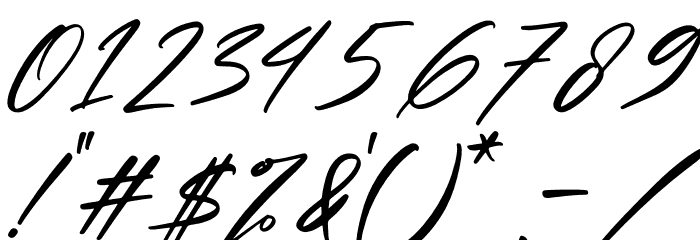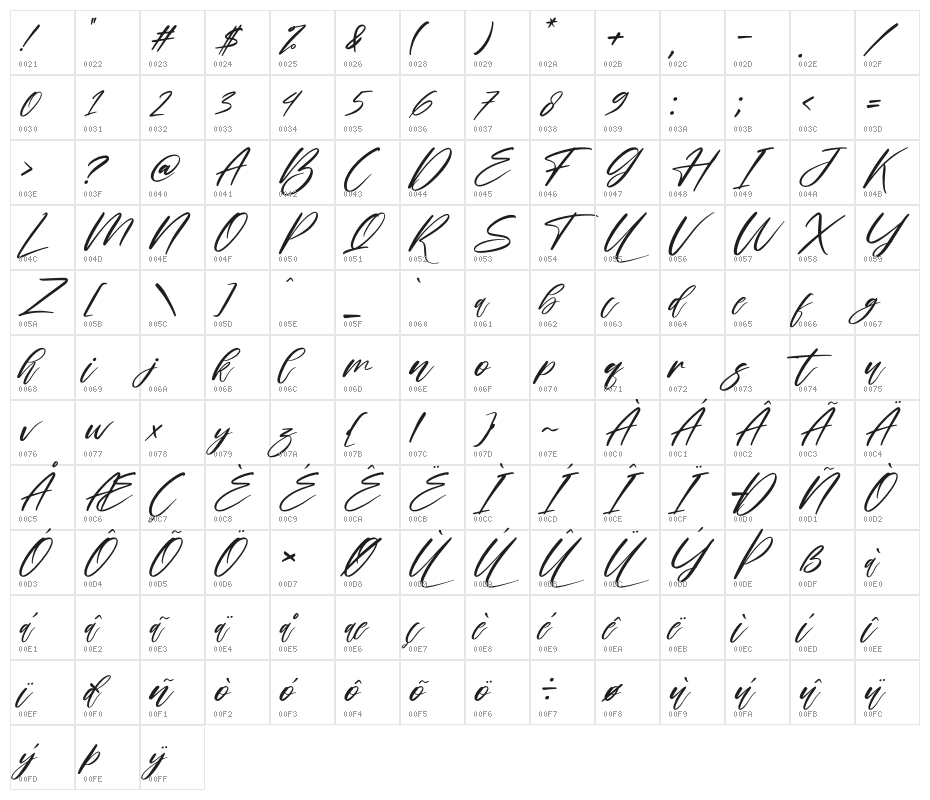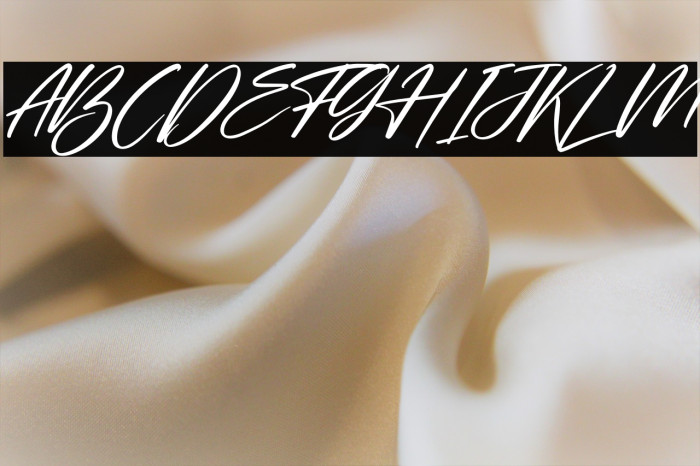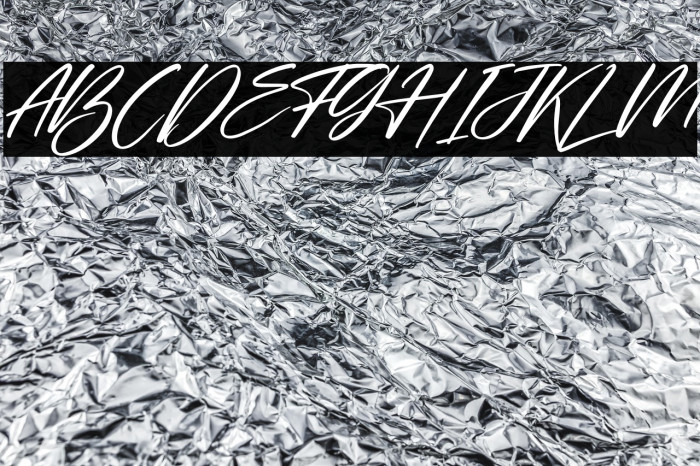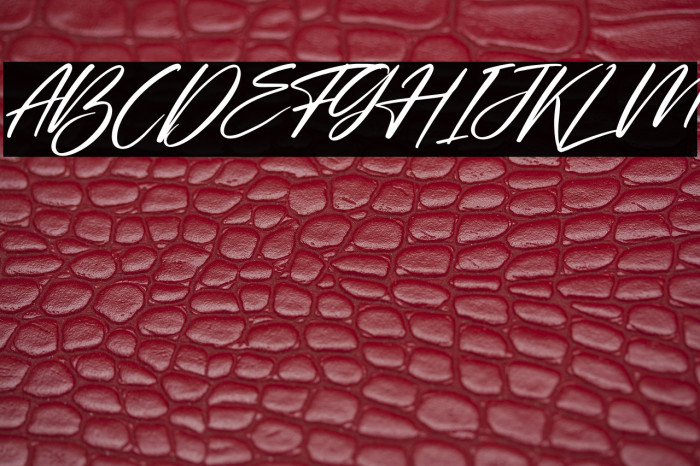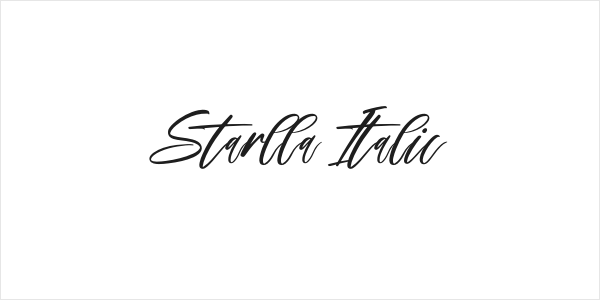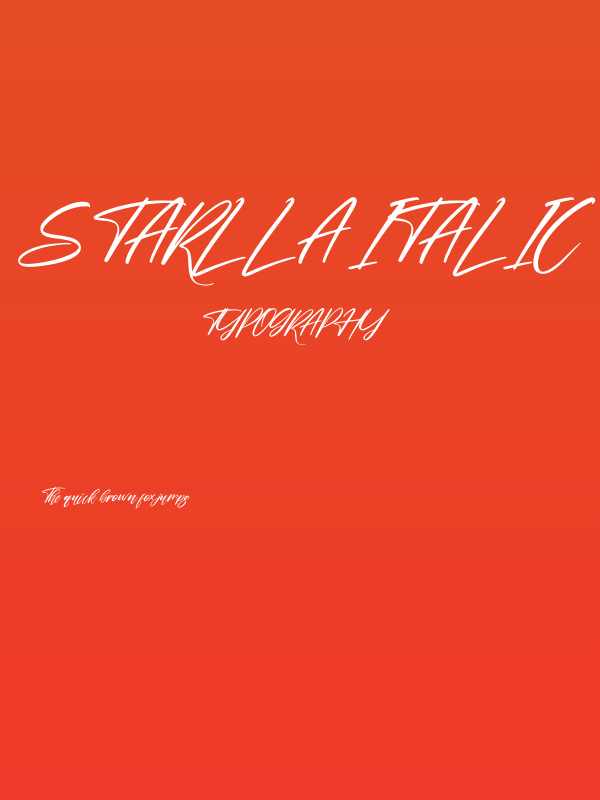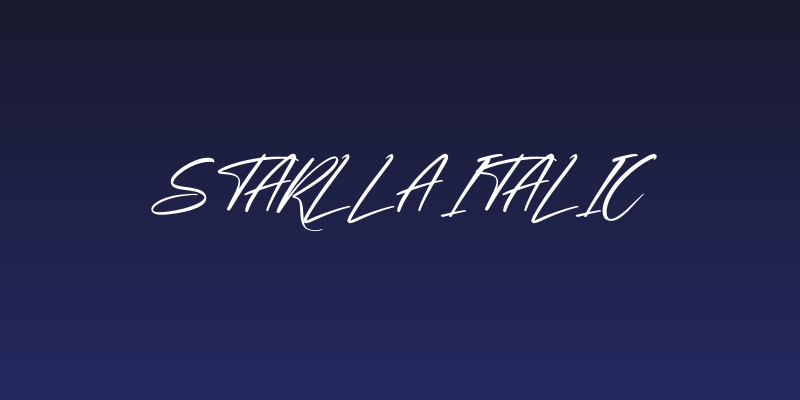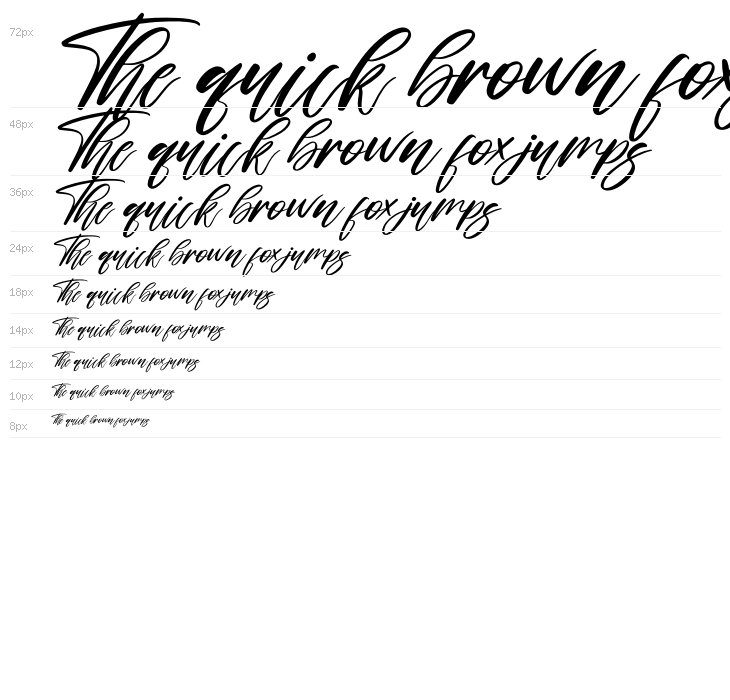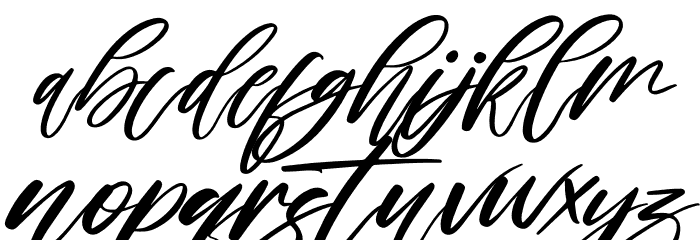
Starlla Italic Font
Starlla Italic Description
This font exudes a dynamic and fluid style, characterized by its cursive, handwritten appearance. The letters are elegantly slanted, giving a sense of motion and grace. The strokes are smooth and connected, with a consistent flow that mimics natural handwriting. The uppercase letters are bold and prominent, while the lowercase letters maintain a harmonious balance, enhancing readability. The numerals and special characters follow the same fluid style, ensuring a cohesive look across all text elements. This font is ideal for projects that require a personal touch, such as invitations, greeting cards, or branding materials.